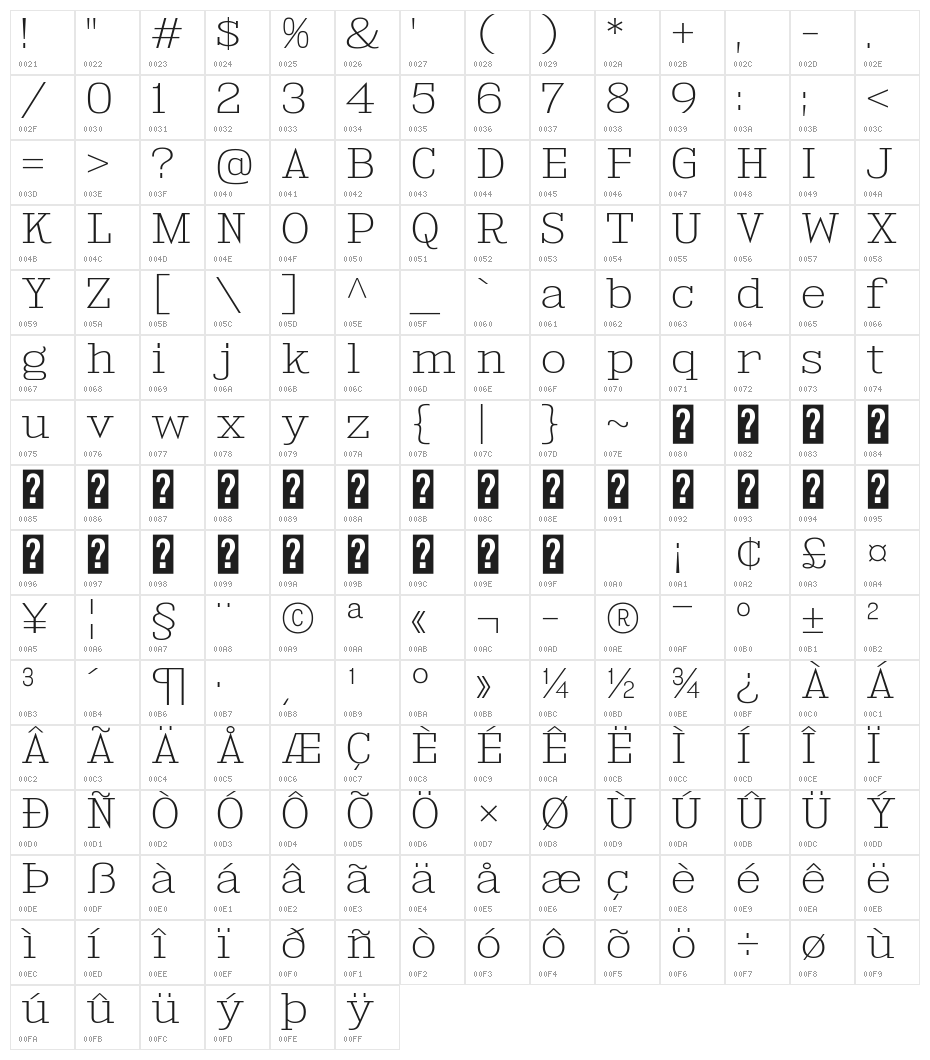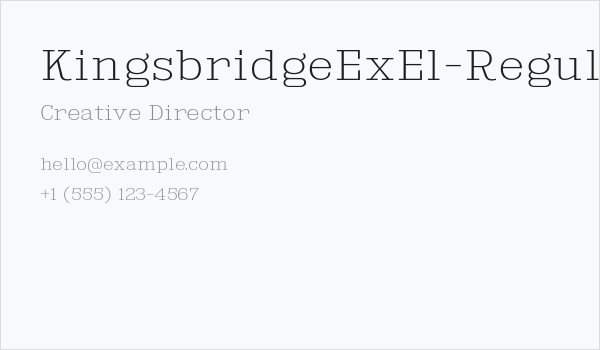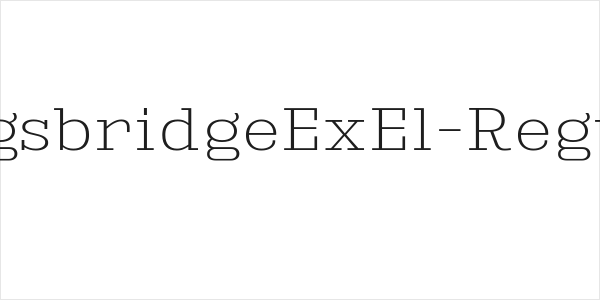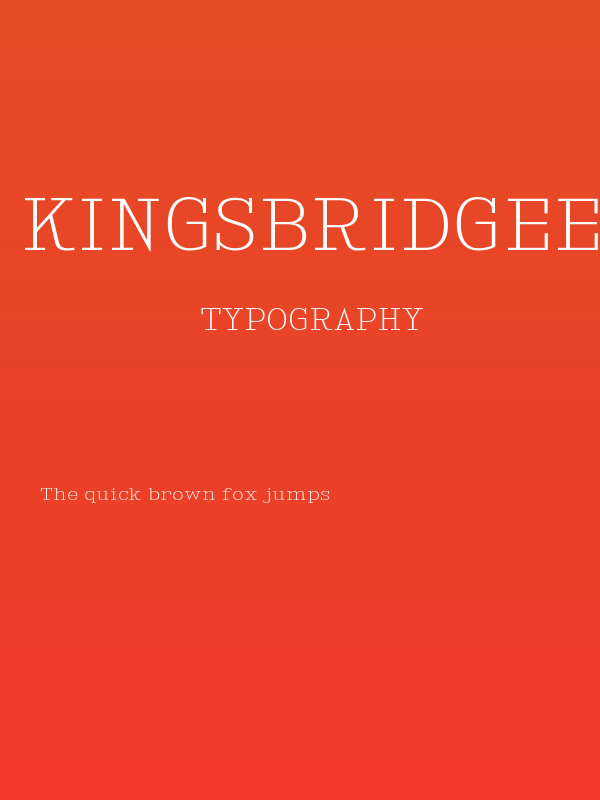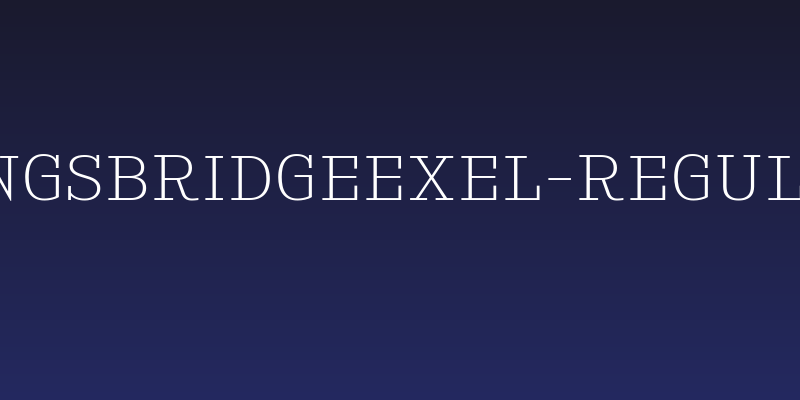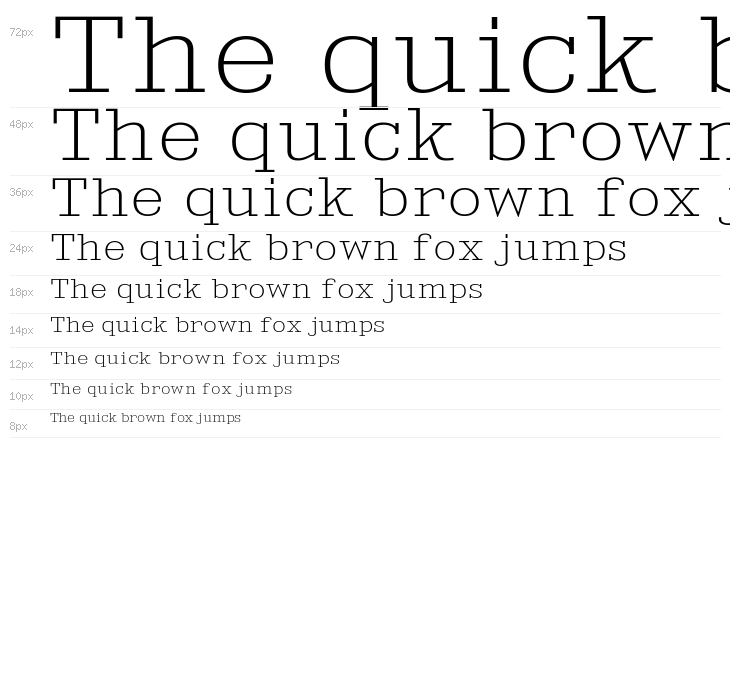
KingsbridgeExEl-Regular Font
KingsbridgeExEl-Regular Description
This font exhibits a refined and elegant serif style, characterized by its clean lines and balanced proportions. The uppercase letters are tall and commanding, while the lowercase letters maintain a consistent and harmonious flow. The numerals are clear and easily distinguishable, making them suitable for various applications. Special characters are well-integrated, maintaining the overall aesthetic of the font. The design is versatile, offering a modern twist on classic serif elements, making it suitable for both digital and print media.
| Proposed Projects | Ideal for editorial design, book covers, branding, and sophisticated invitations. |